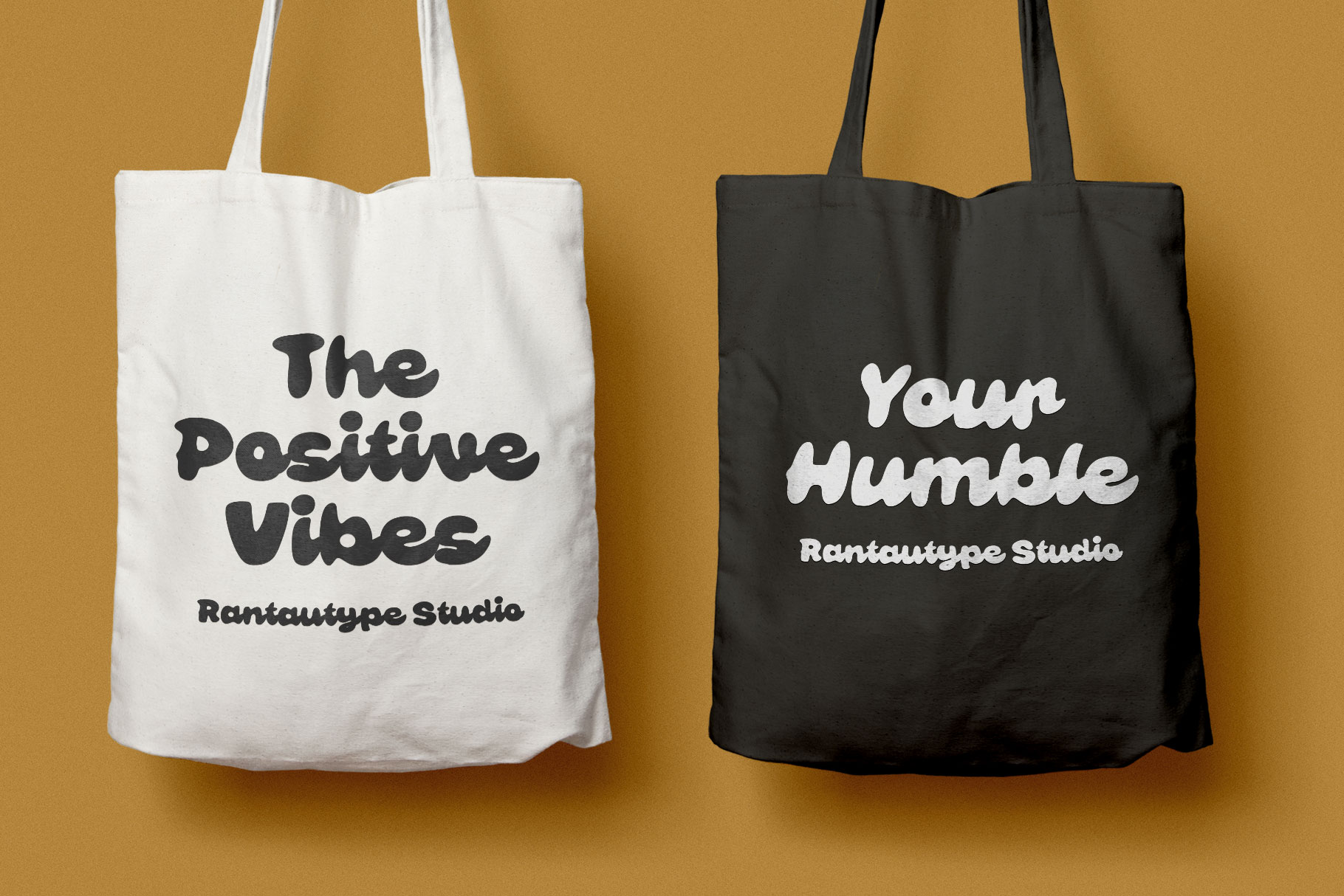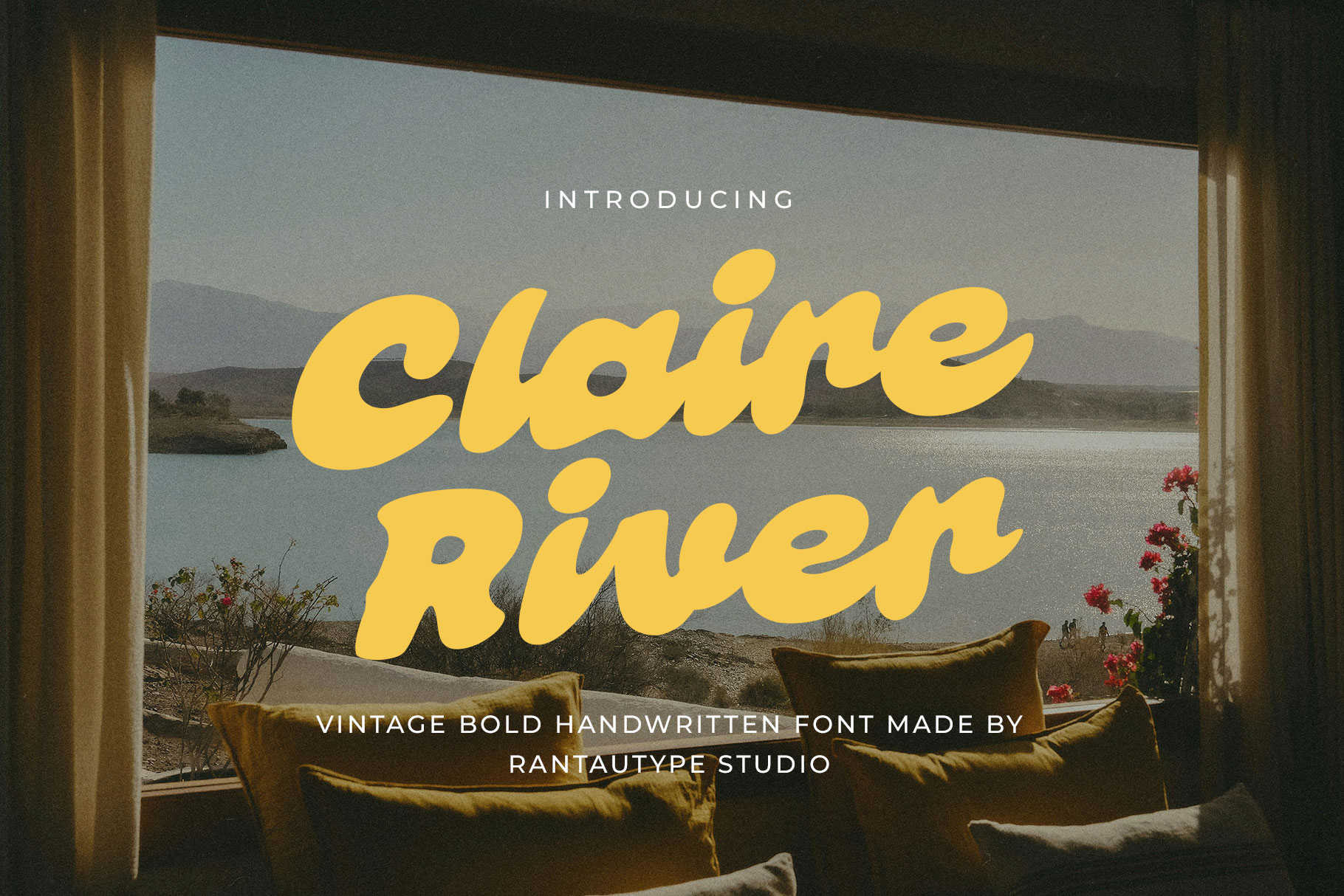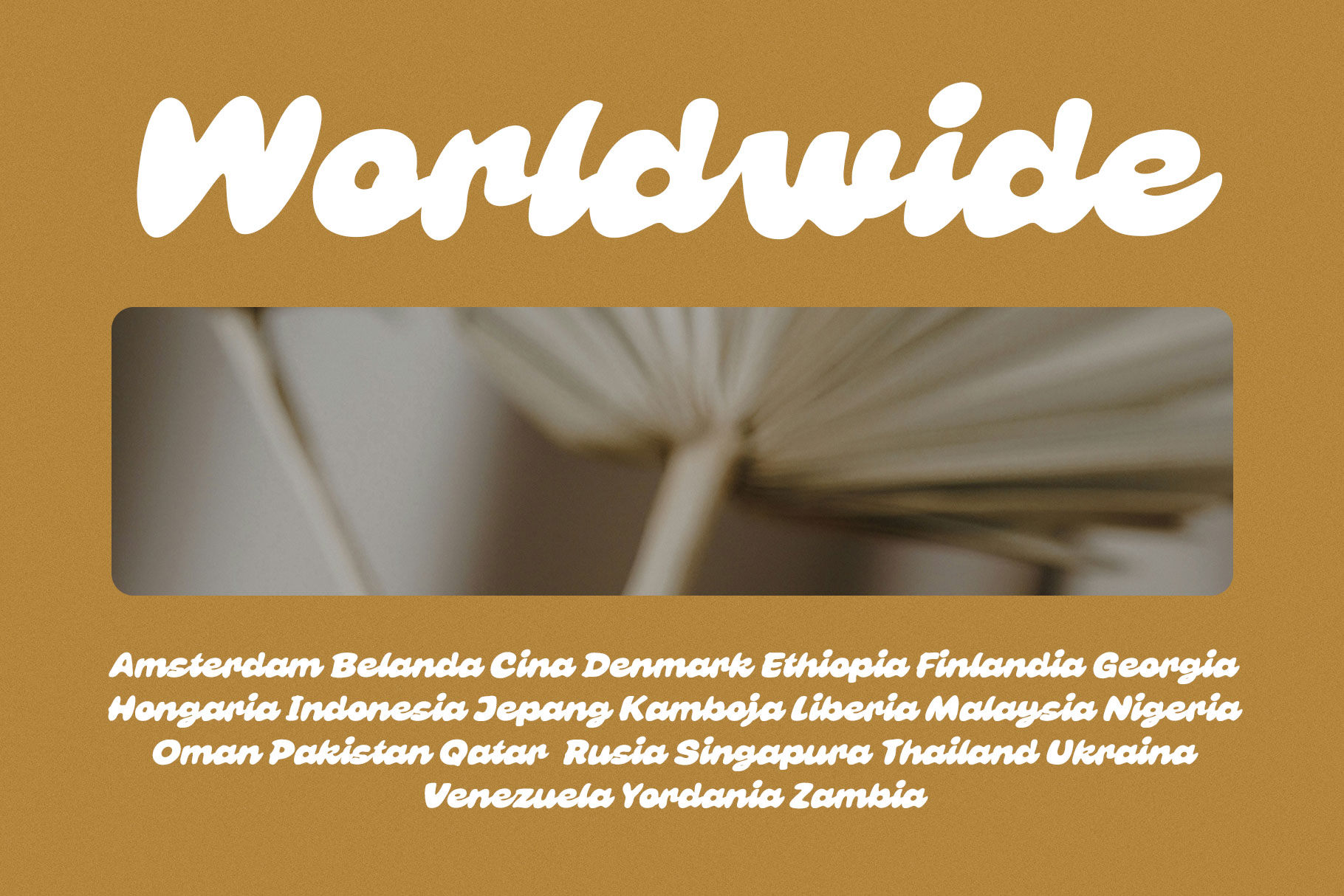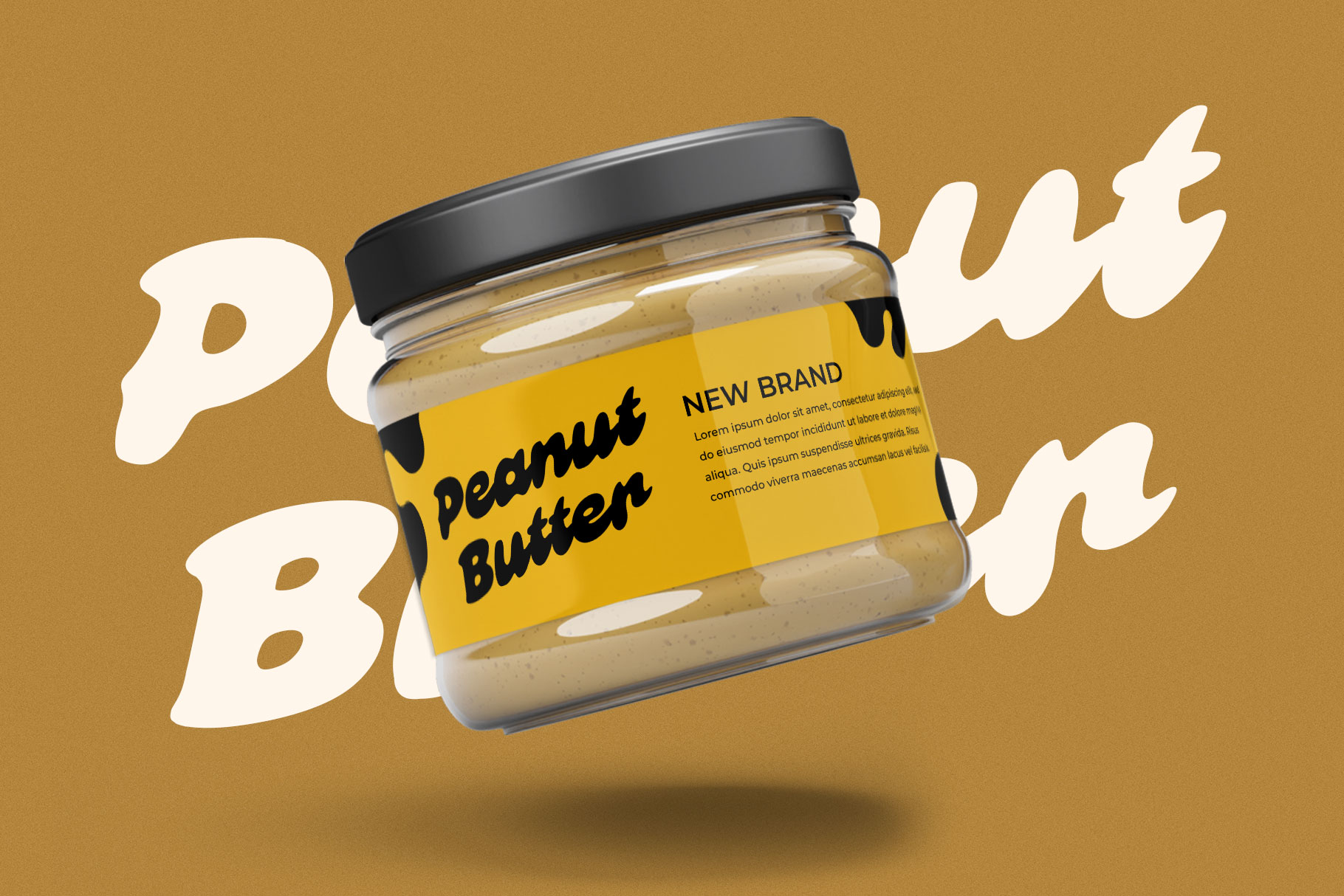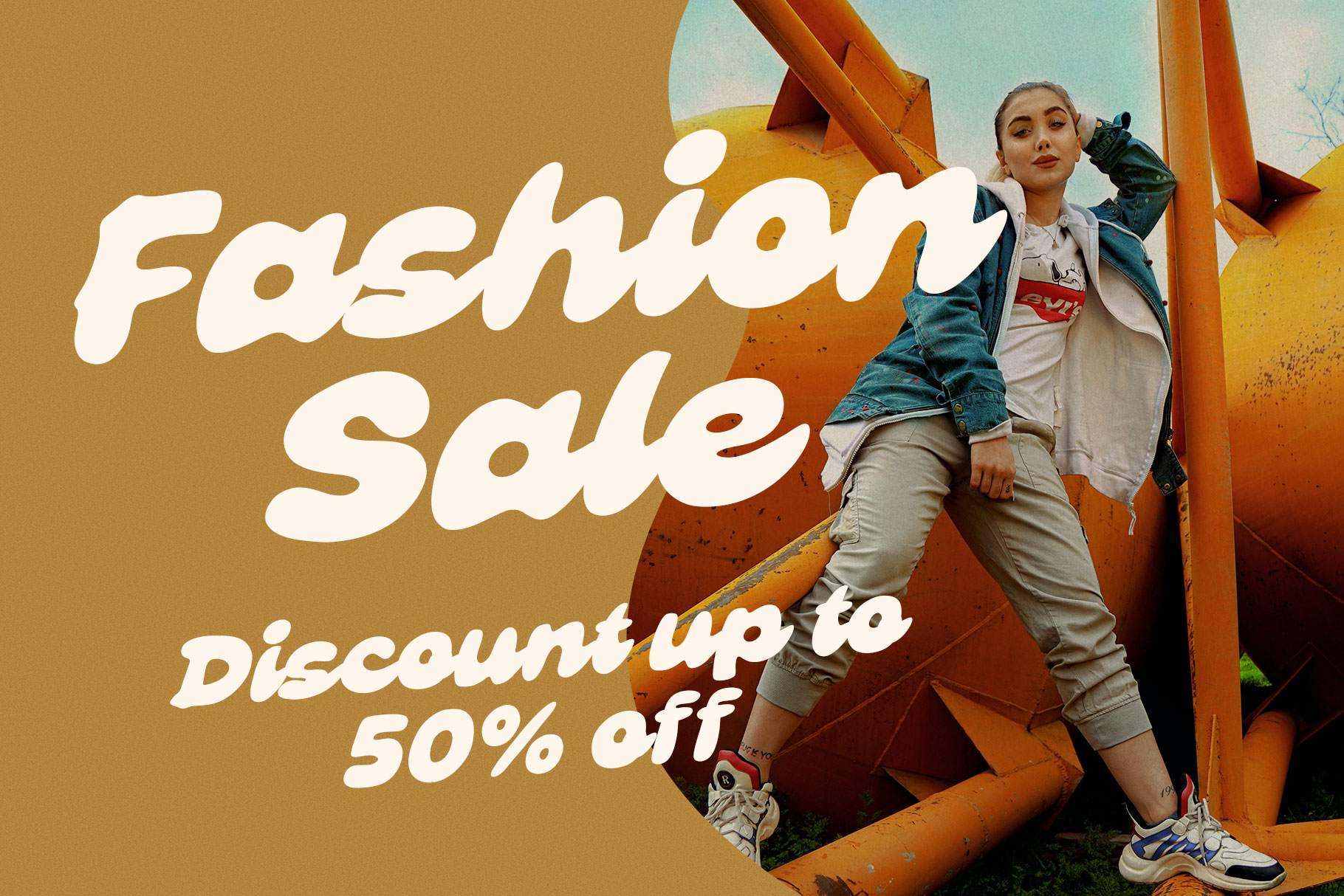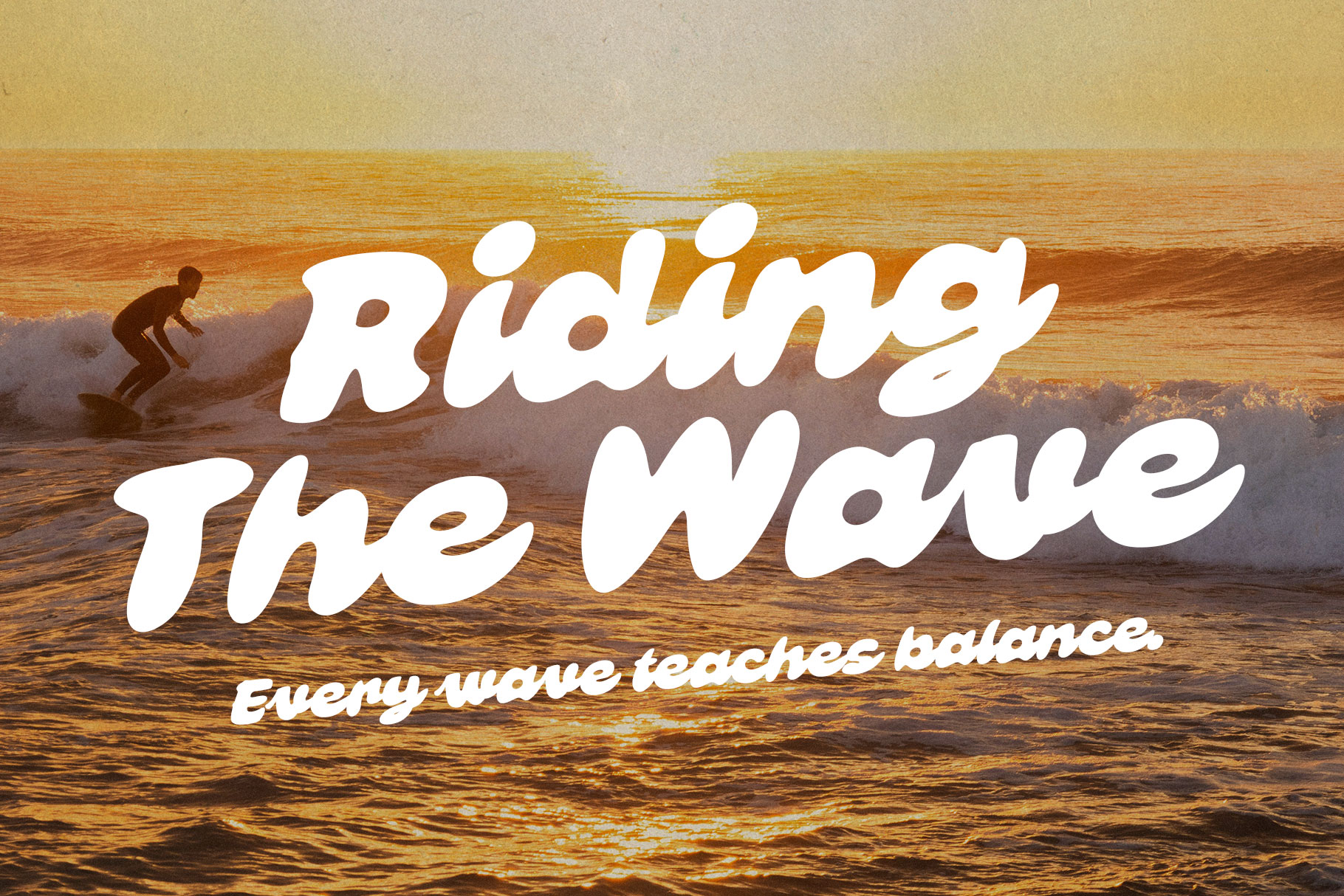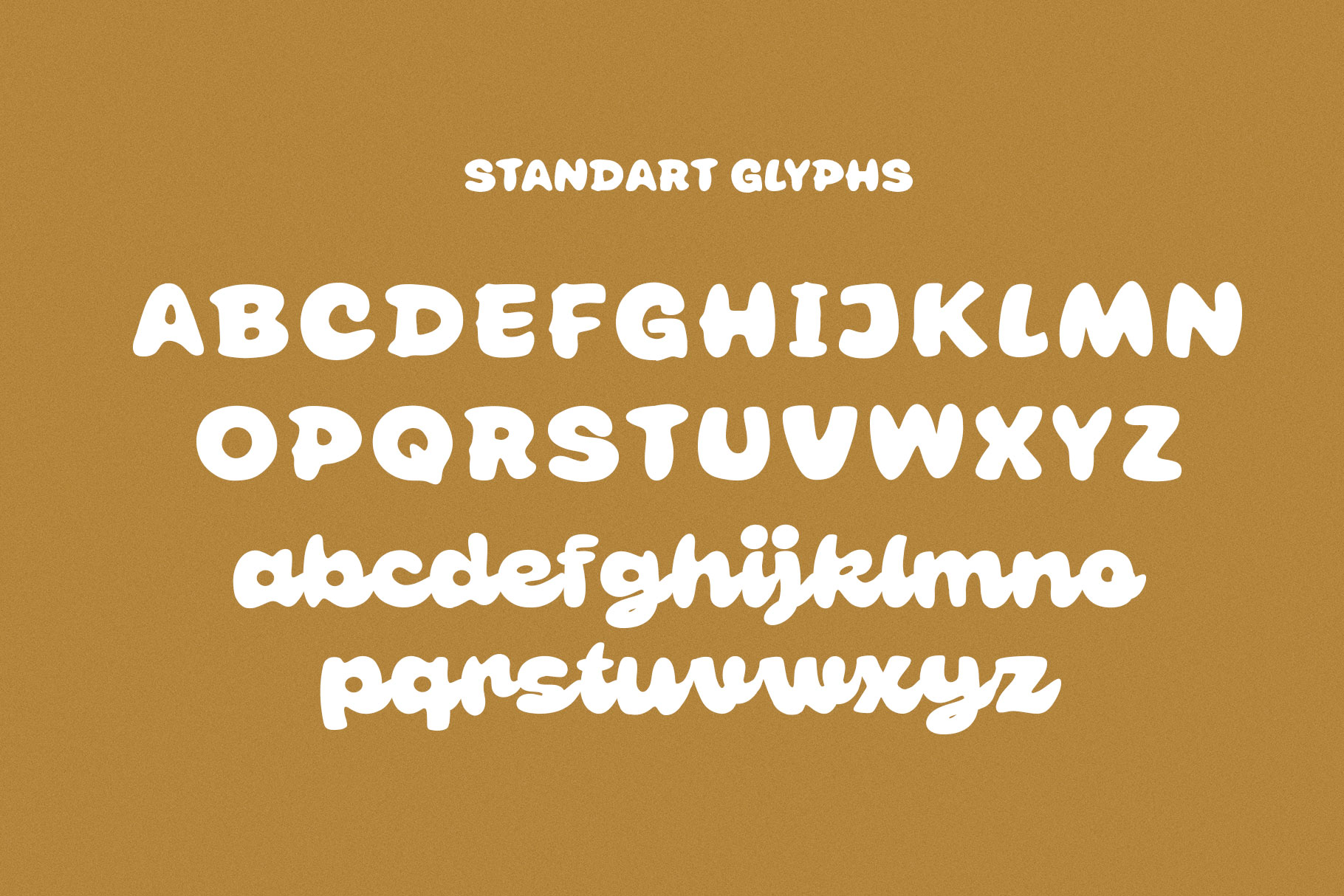
Claire River Vintage Bold Handwrittern Font
Claire River is vintage handwritten font captures the spirit of timeless craftsmanship with a confident, expressive touch. Inspired by classic signage, retro packaging, and old-school lettering, this style blends nostalgic charm with powerful personality.
Claire River is a perfectly choice for any creative endeavor, creating, modern, lifestyle design such as logotype, title, cover, branding, invitations, wedding designs, display and magazine, social media posts, advertisements, printed quotes, product packaging, corporate brand, product designs, labels, photography, watermarks, special events and any other project with vintage touch.